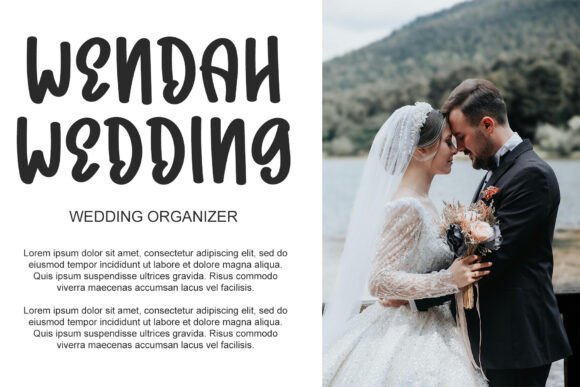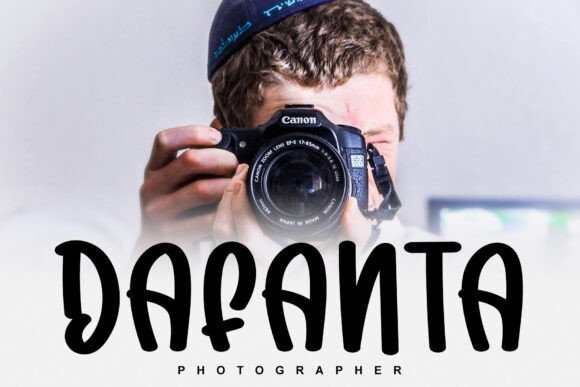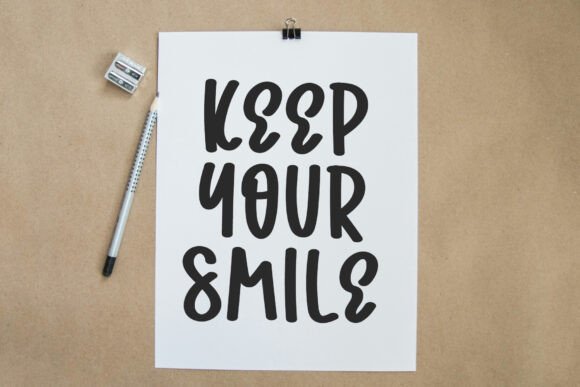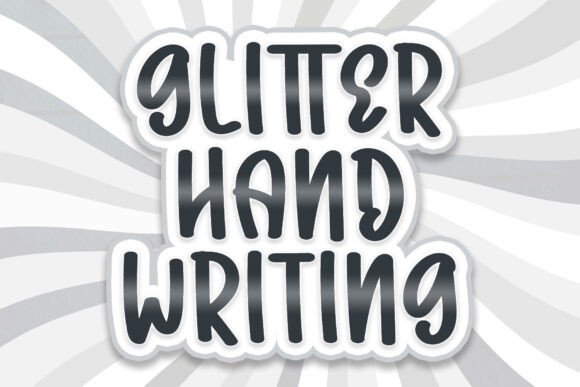
Introduction to Glitter Handwriting Font
Glitter Handwriting is a beautiful display lovely font perfect for magazines and crafts.
Key Features of Glitter Handwriting Font